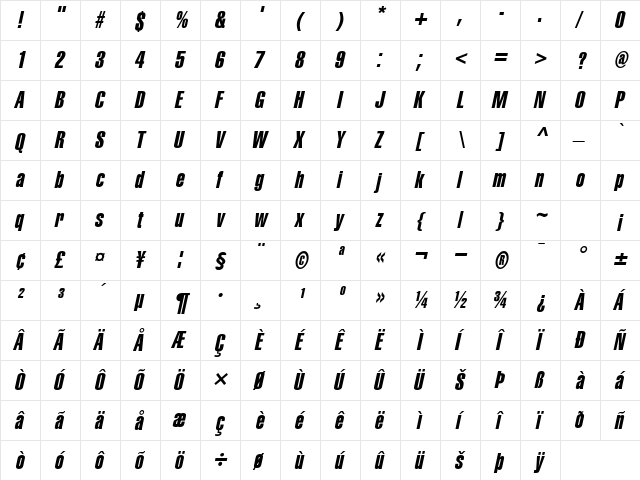
CorporateCompressedExtra Italic
Design Context for CorporateCompressedExtra Typeface
CorporateCompressedExtra is a composed and adaptable typeface that performs quietly and consistently across a wide range of design contexts. The slanted form adds forward momentum and visual energy.